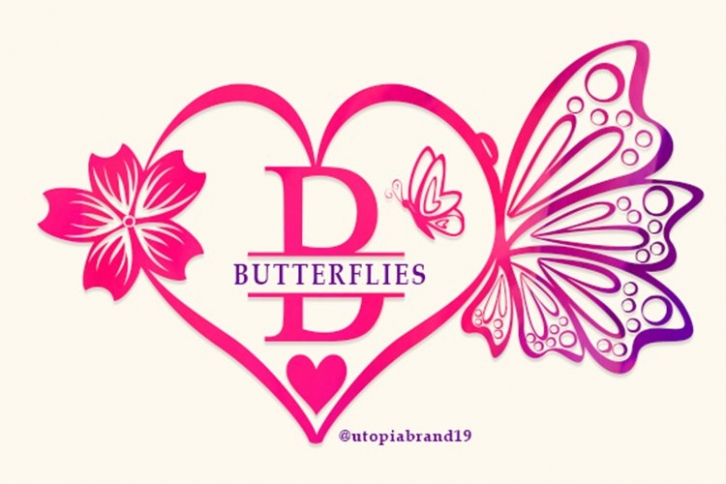
Butterflies Monogram is a great font that was designed by Ayah Phoen. Imagine the amount of combinations you can create using this font! The archive is 1.2 MB and it was released on January 12, 2021. Butterflies Monogram looks beautiful on wedding invitations, greeting cards, logos, posters, labels, t-shirt designs, logos, business cards and is perfect for use in ink or watercolor works, fashion, magazines, packaging and food menus, children's books and more!